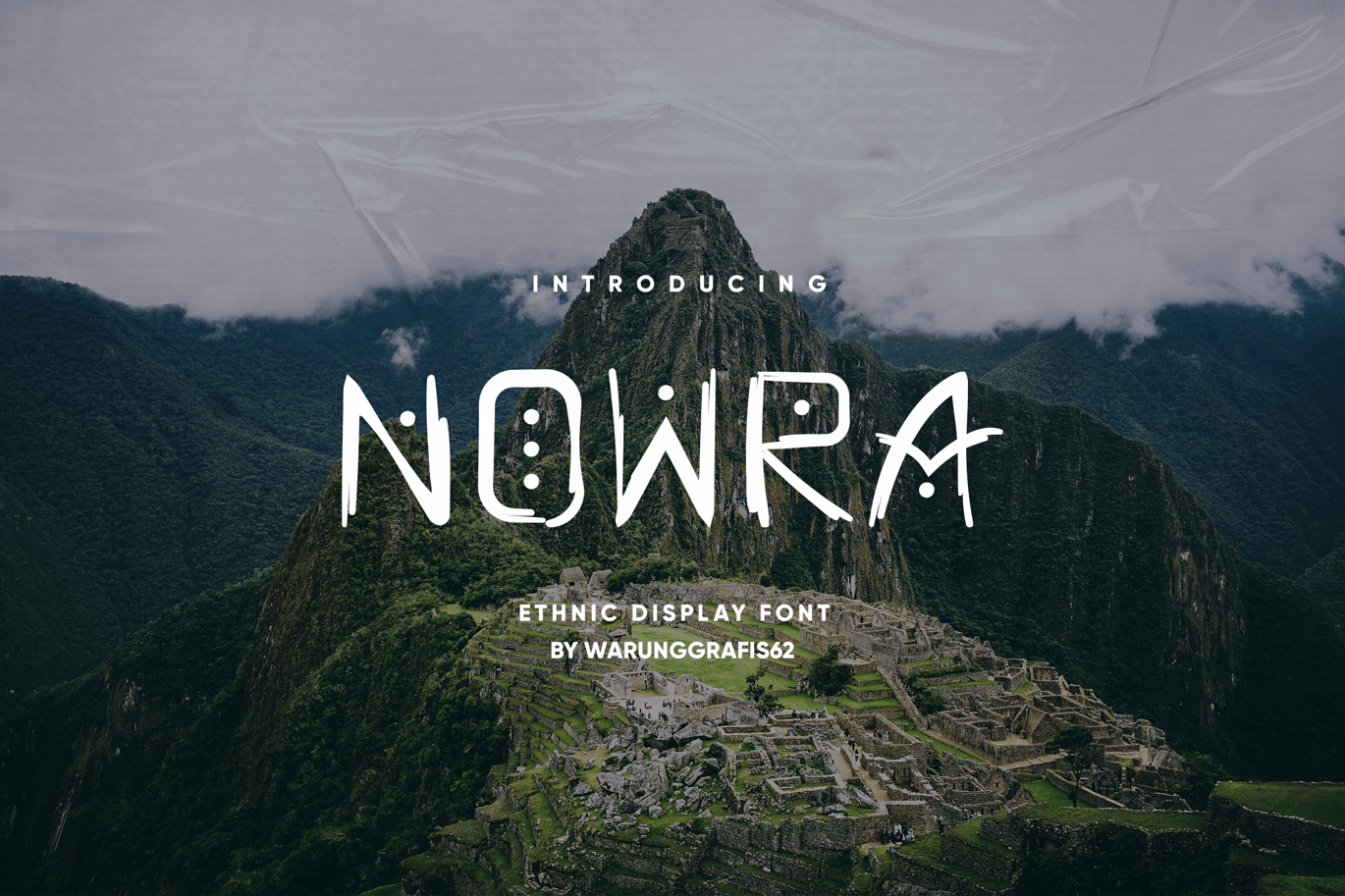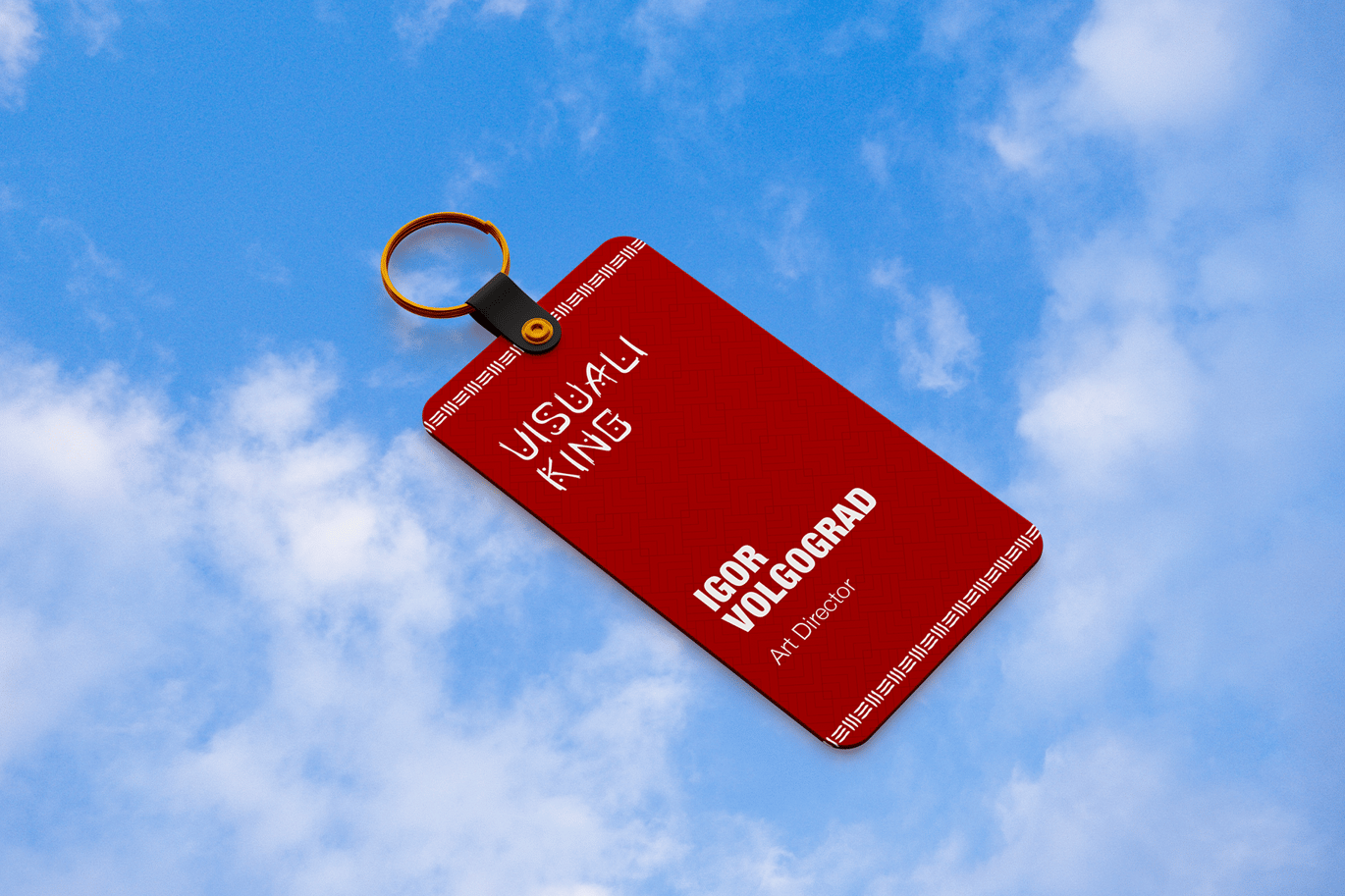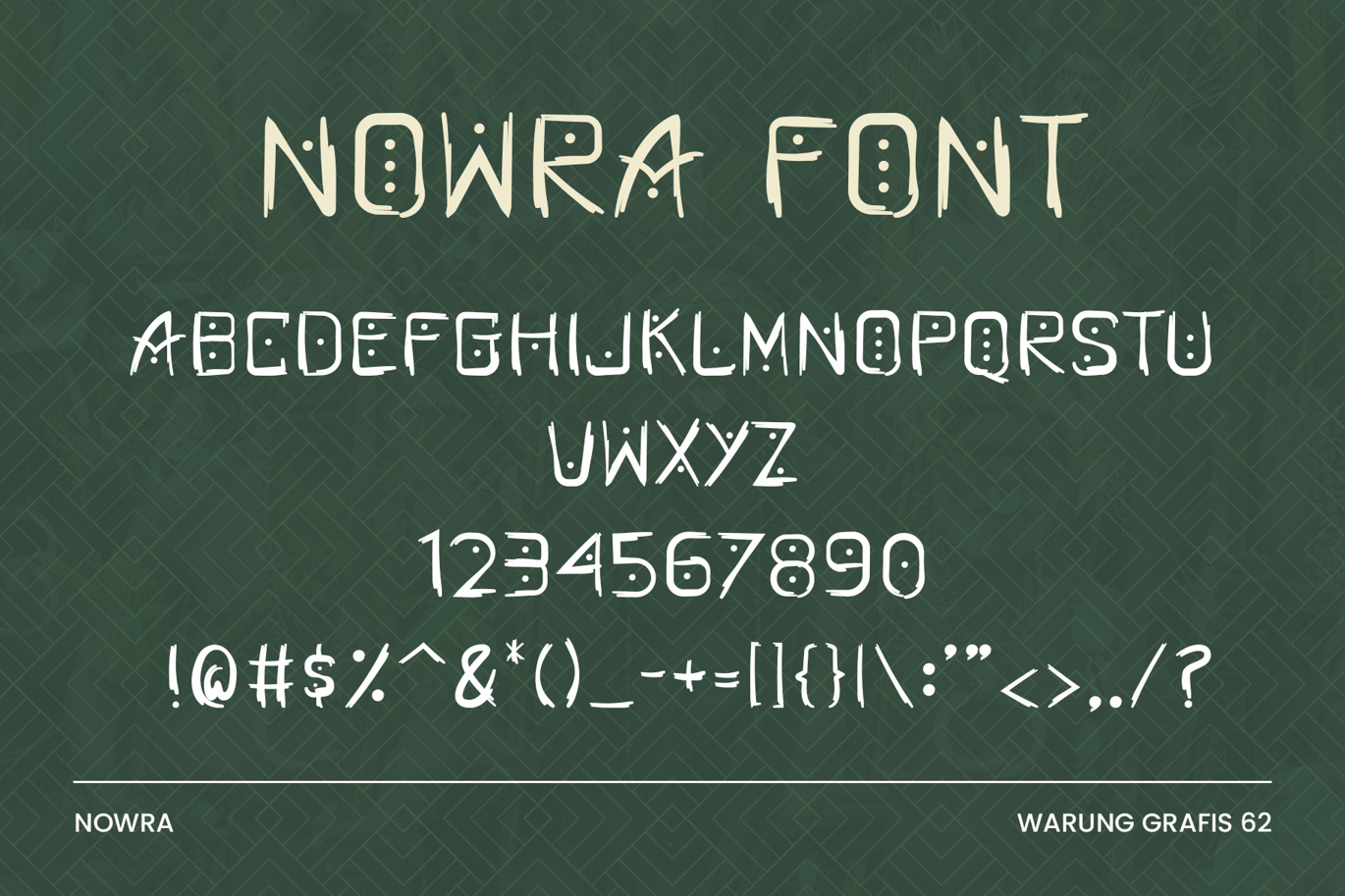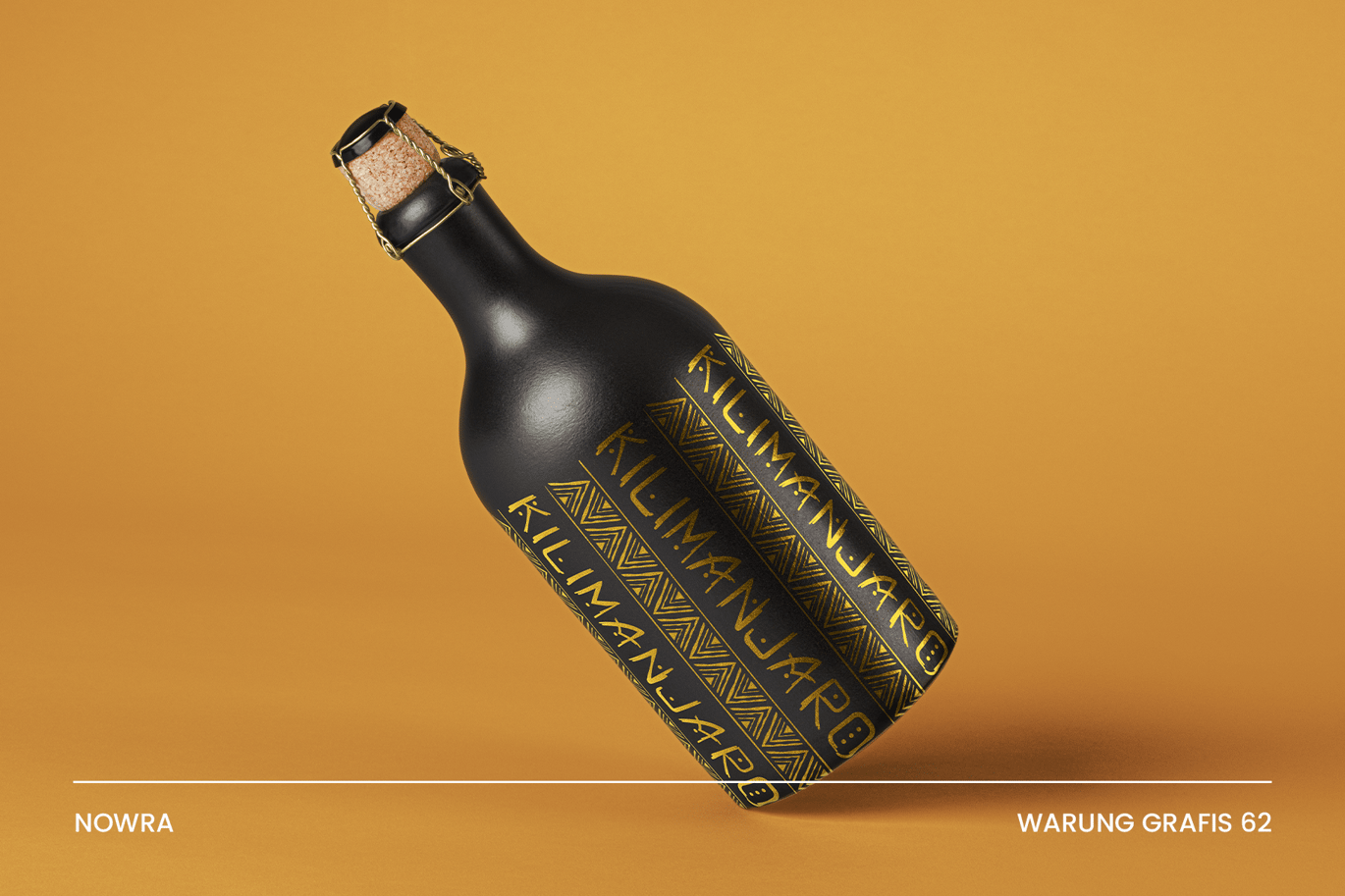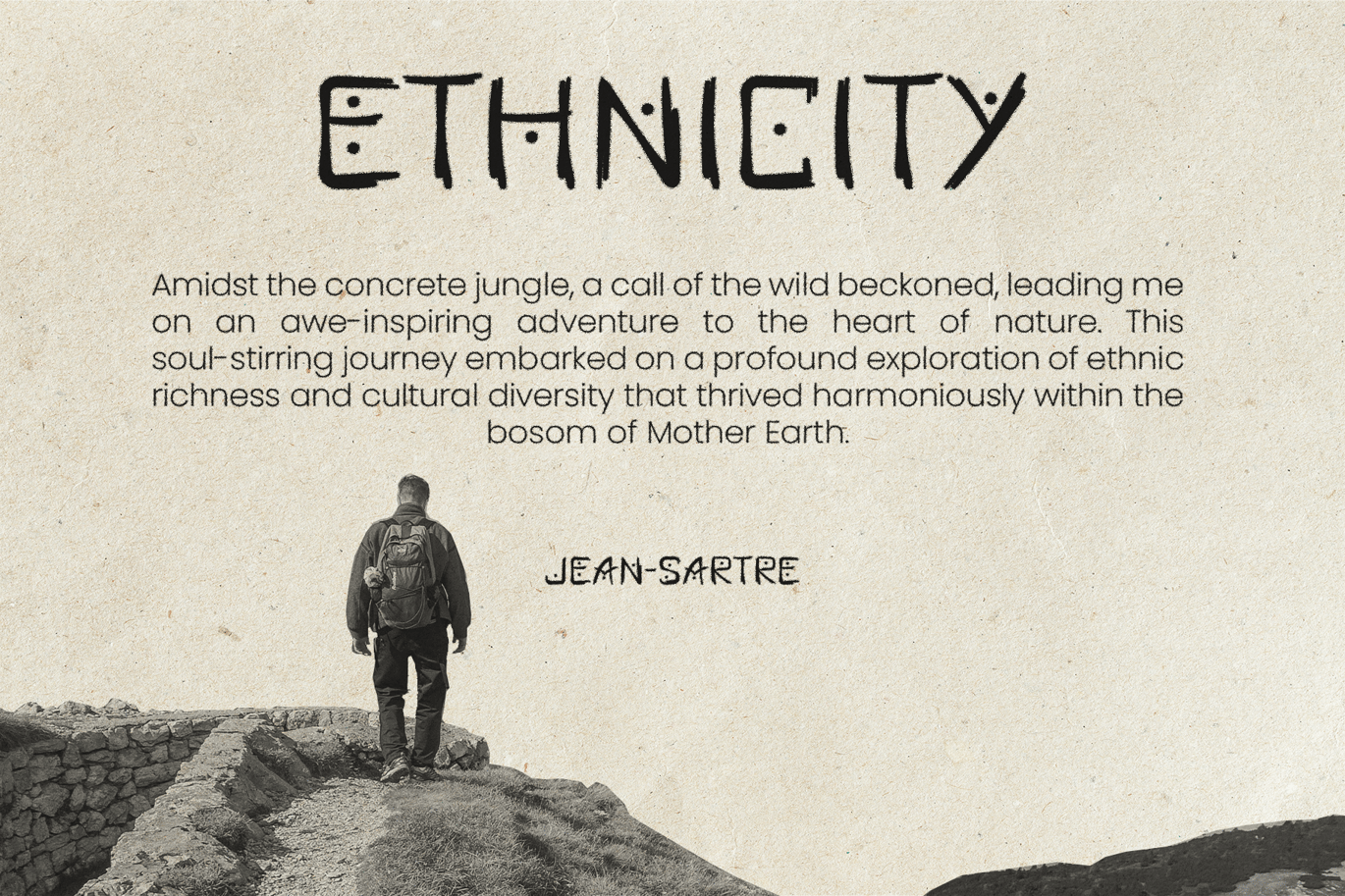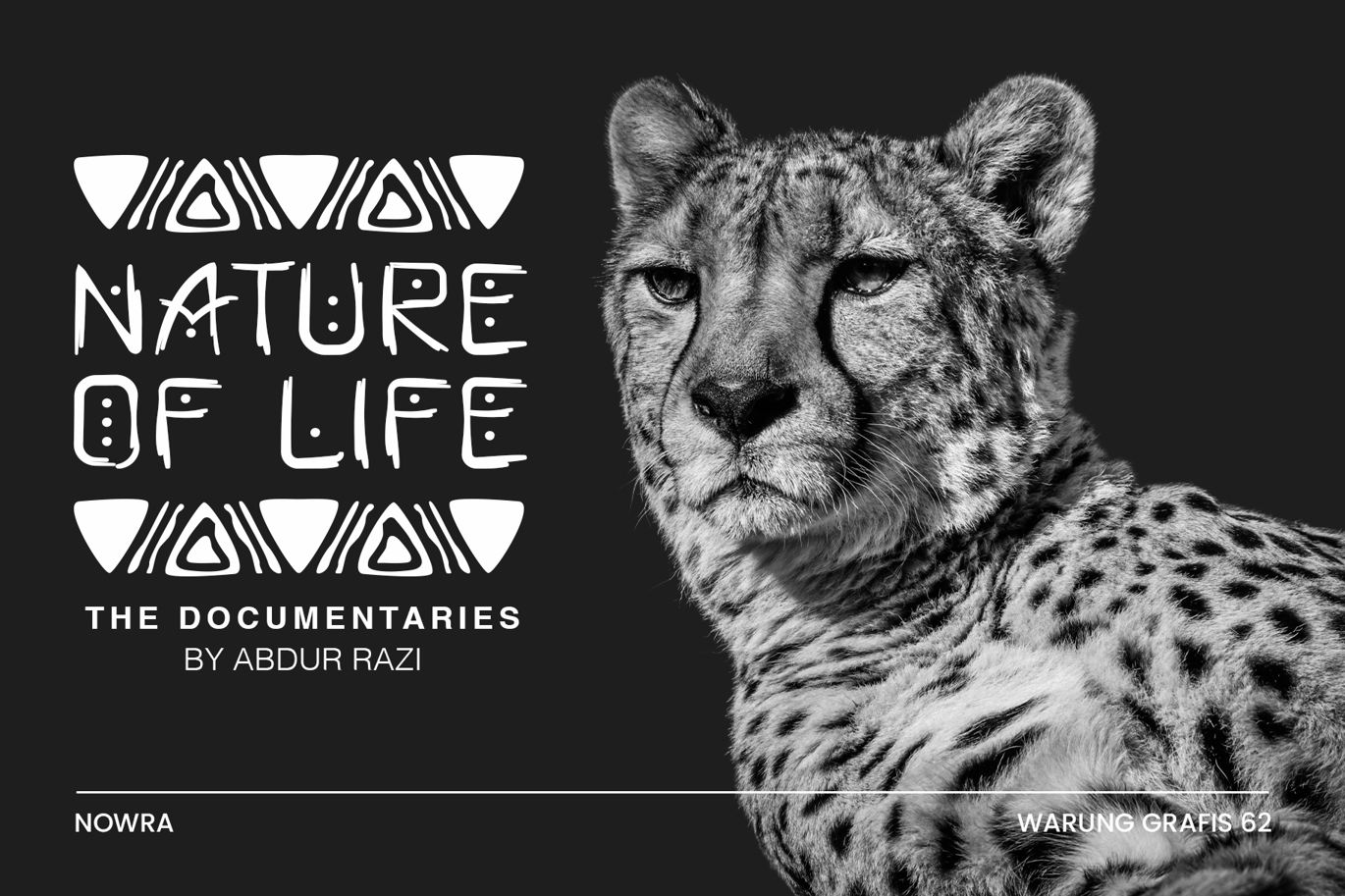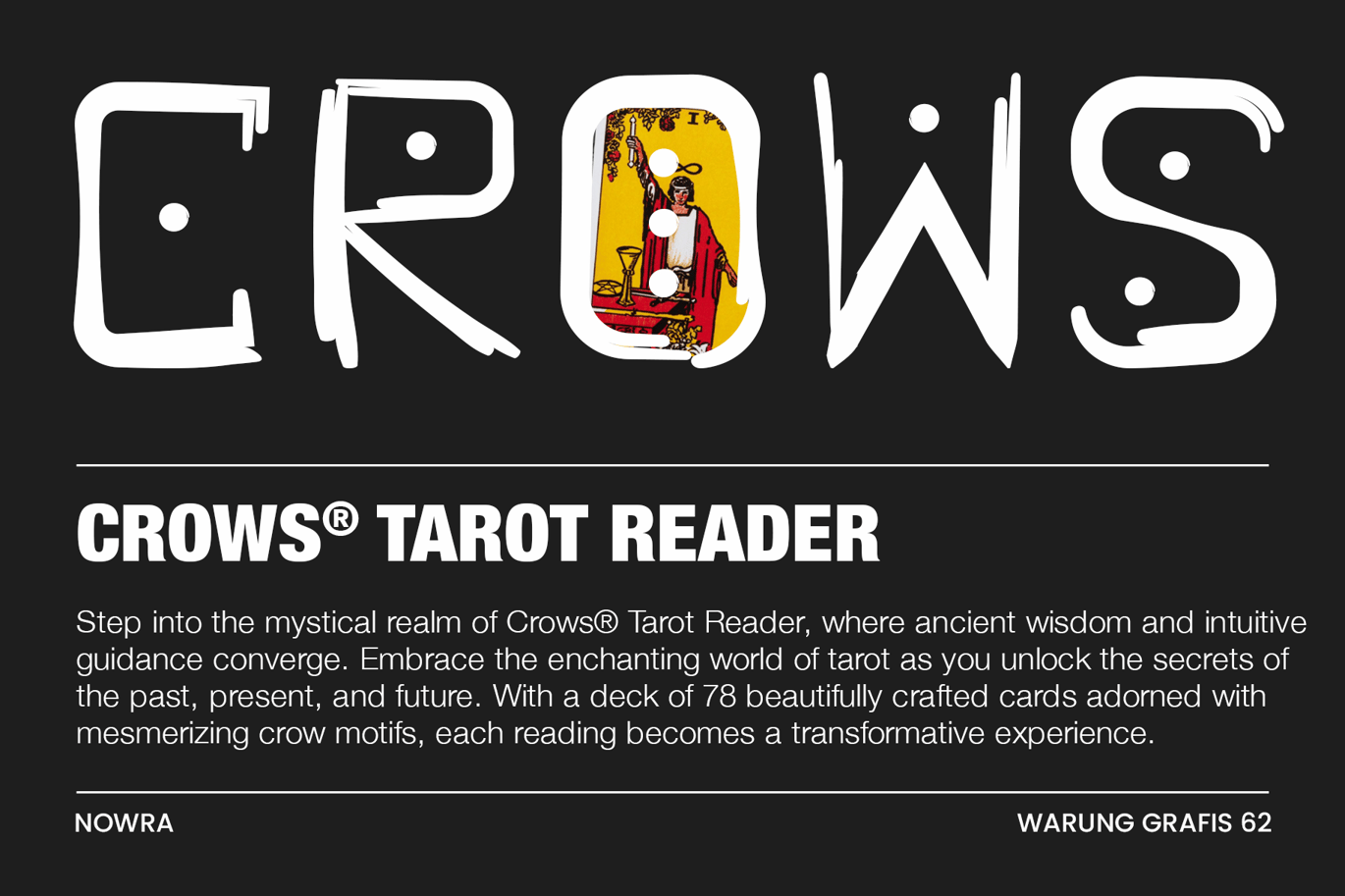
Nowra – Ethnic Display Font
Nowra is an enchanting Ethnic Display Font that pays homage to the rich art and culture of Papua. With intricate tribal motifs woven into each character, this font captures the essence of ancient traditions and modern design. Embrace the vibrant energy and ethnic charm of Nowra as it adds a touch of uniqueness to your projects. Whether it’s for branding, posters, or merchandise, this font will transport your audience to a world of cultural wonders. Let Nowra be your gateway to exploring the captivating allure of Papua and infuse your creations with a touch of ethnic elegance.